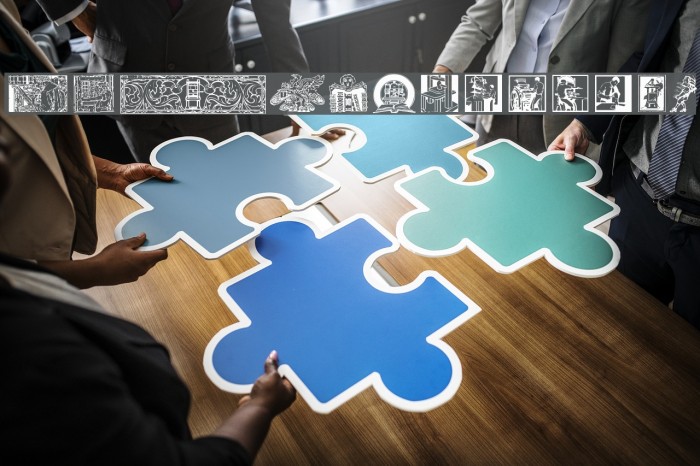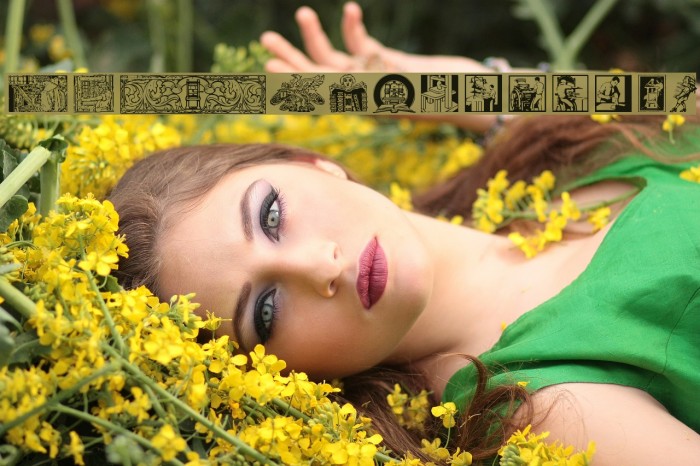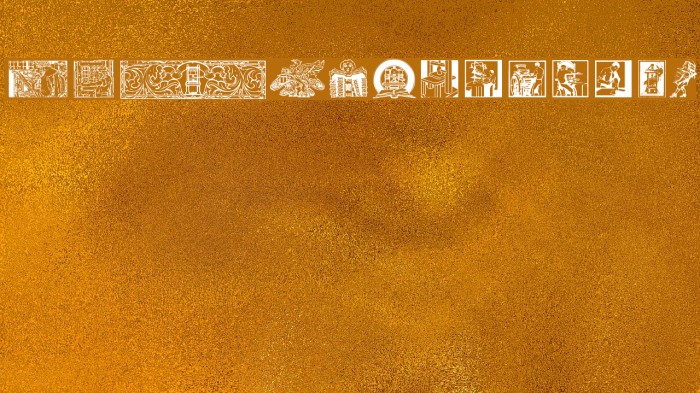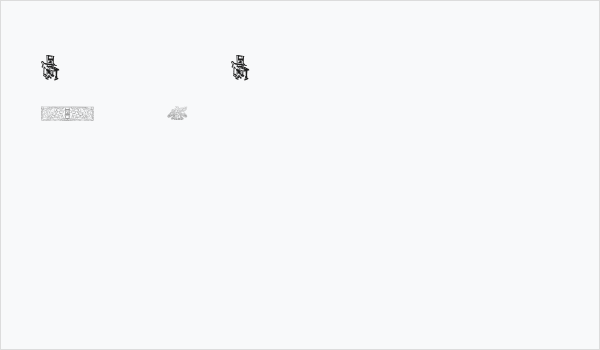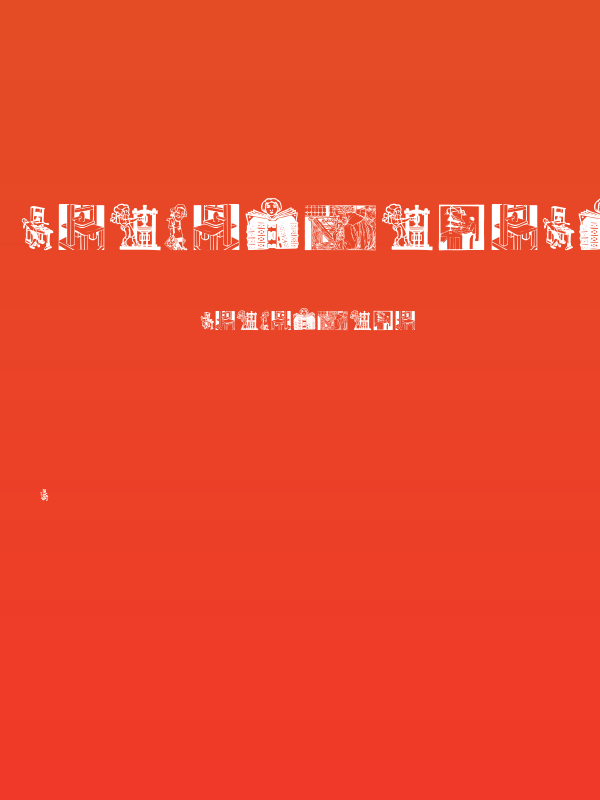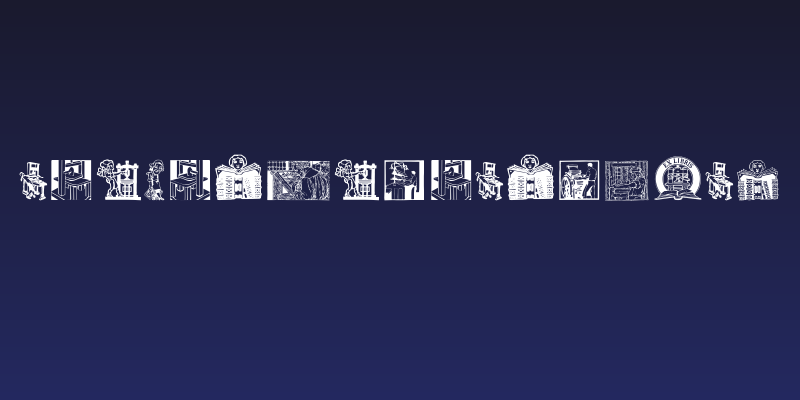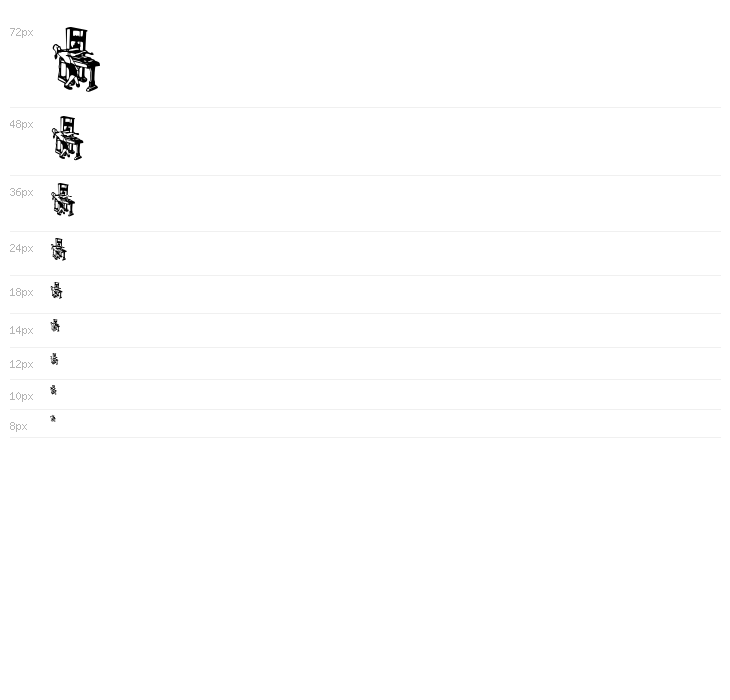
TypographyTribute Font
TypographyTribute Description
This is not a traditional font but rather a collection of intricate illustrations and decorative elements. Each character is represented by a unique, detailed image that seems to pay homage to historical or classical themes. The images are highly detailed, with a focus on artistic expression rather than legibility as a typeface. This set could be used for decorative purposes, adding a vintage or classical touch to projects. The characters are not uniform in style or theme, making them more suitable for artistic or thematic applications rather than standard text usage.
| Use Case | Logos, Decorative elements |
| Proposed Projects | Ideal for decorative projects, artistic designs, vintage-themed invitations, or historical presentations. |